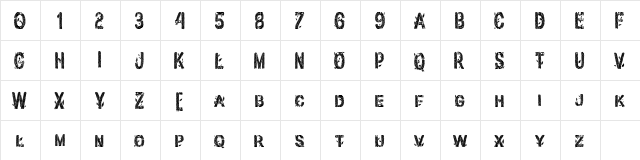
WOODYSSEY Regular
| Designer | Ahmad Zulfikar Ali (ZetDesign) |
Design Context for WOODYSSEY Typeface
WOODYSSEY echoes the hand-painted signage and woodblock typography of the American frontier, with a warm, rugged personality.
A natural fit for craft spirits, ranch branding, rodeo events, and Americana-inspired design work.
Font Pairing: Combine WOODYSSEY with a simple slab or neutral sans — period-accurate companions reinforce the vintage feel without competing for attention.
Pro Tip: Use WOODYSSEY for short, impactful bursts of text — it shines in poster headlines and product names rather than extended copy.